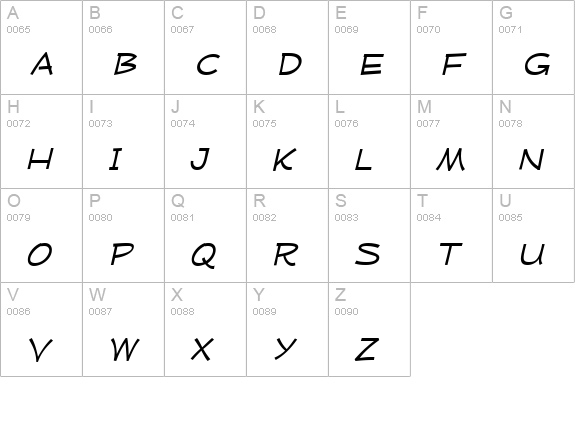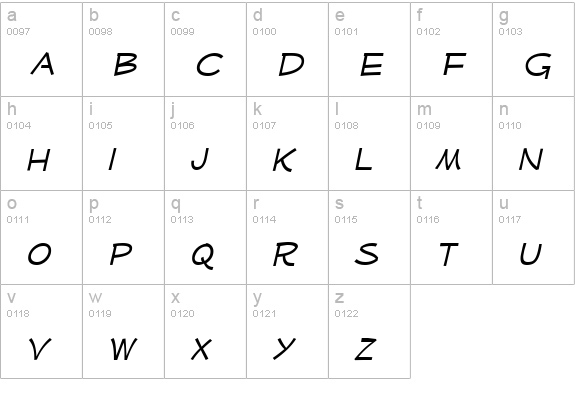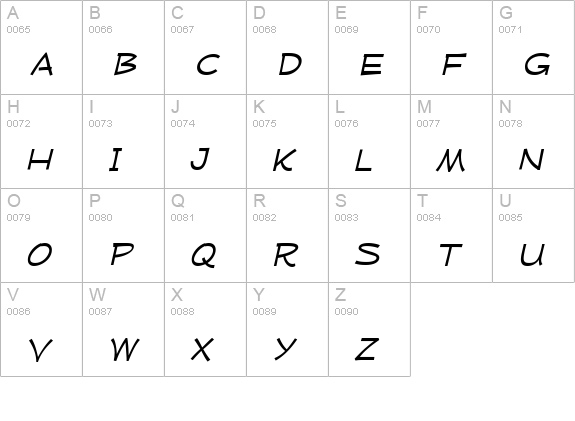
Mufferaw Xp Italic Font Details
Mufferaw Xp Italic is a distinctive, italic variant in the Mufferaw typeface family \xE2\x80\x94 well suited to design and typography projects.
Mufferaw Xp Italic font is a stylish and modern typeface that exudes sophistication and elegance. With its sleek design and unique italicized characters, this font is perfect for adding a touch of class to any project. Whether you're designing a wedding invitation, a business card, or a website, Mufferaw Xp Italic font will elevate your design to the next level. The best part? Mufferaw Xp Italic font is completely free to download at FontsMarket.com! You can easily access this stunning font and incorporate it into your projects without any cost. Take advantage of this amazing offer and enhance your designs with the beauty of Mufferaw Xp Italic font today.